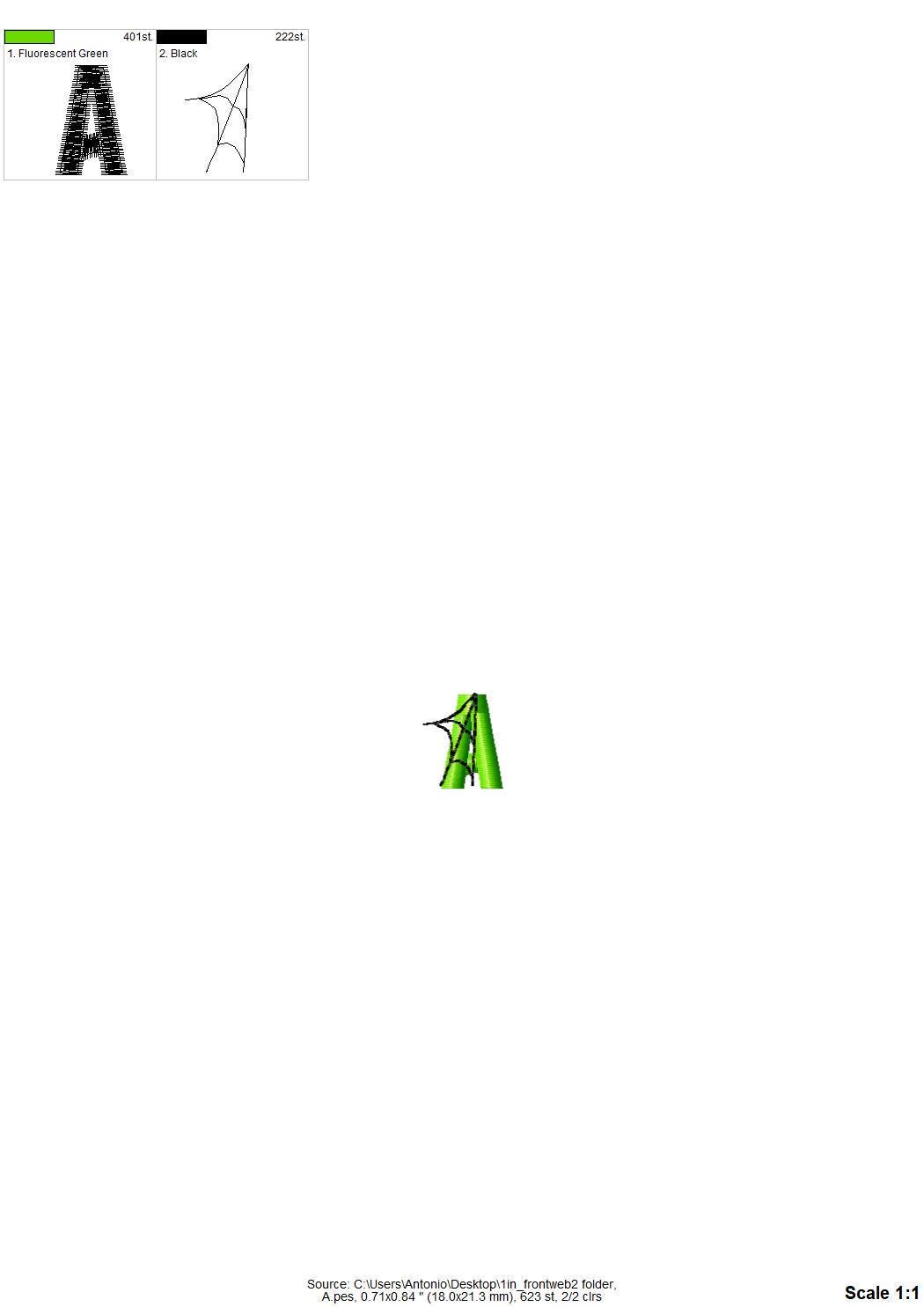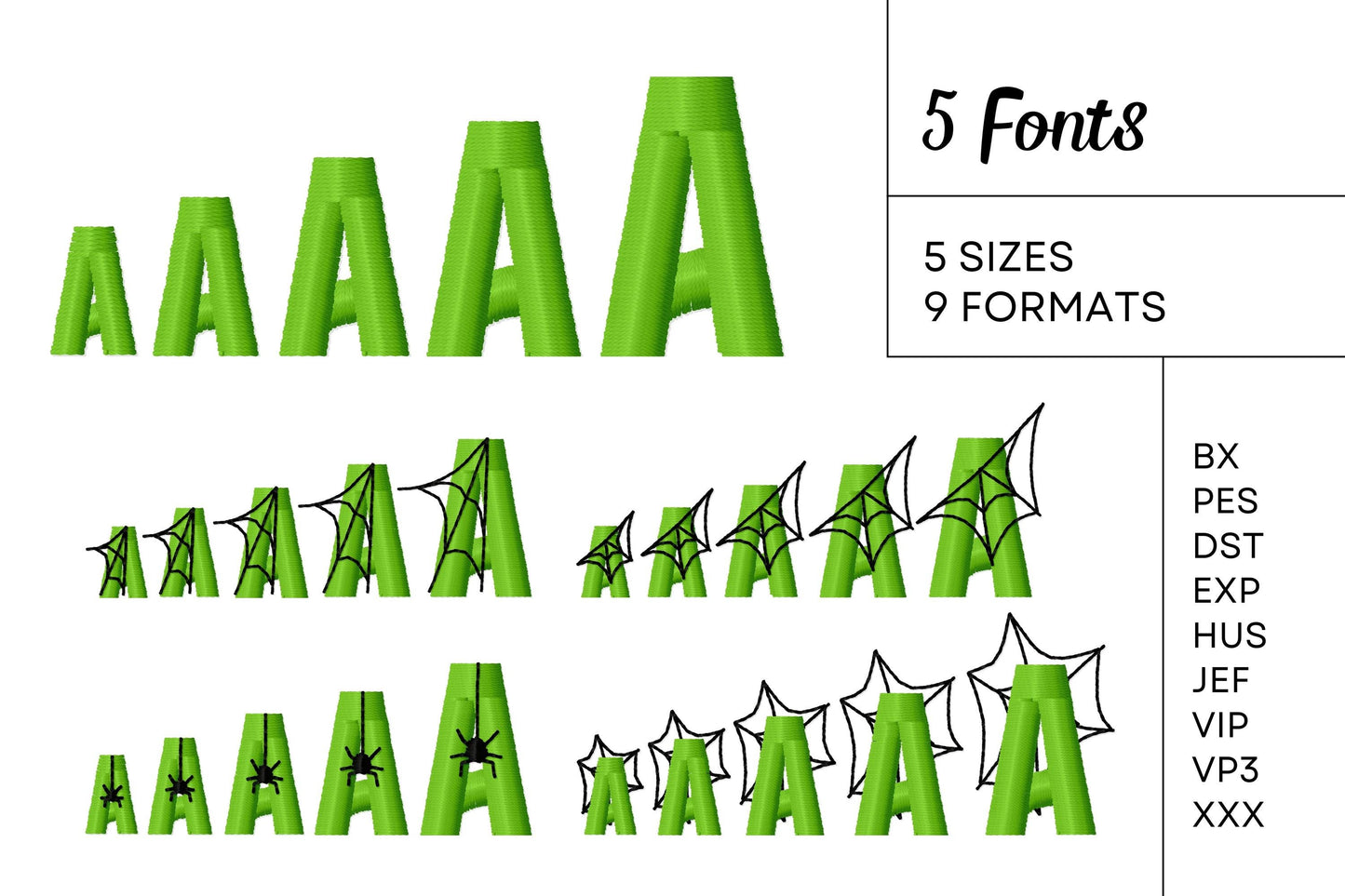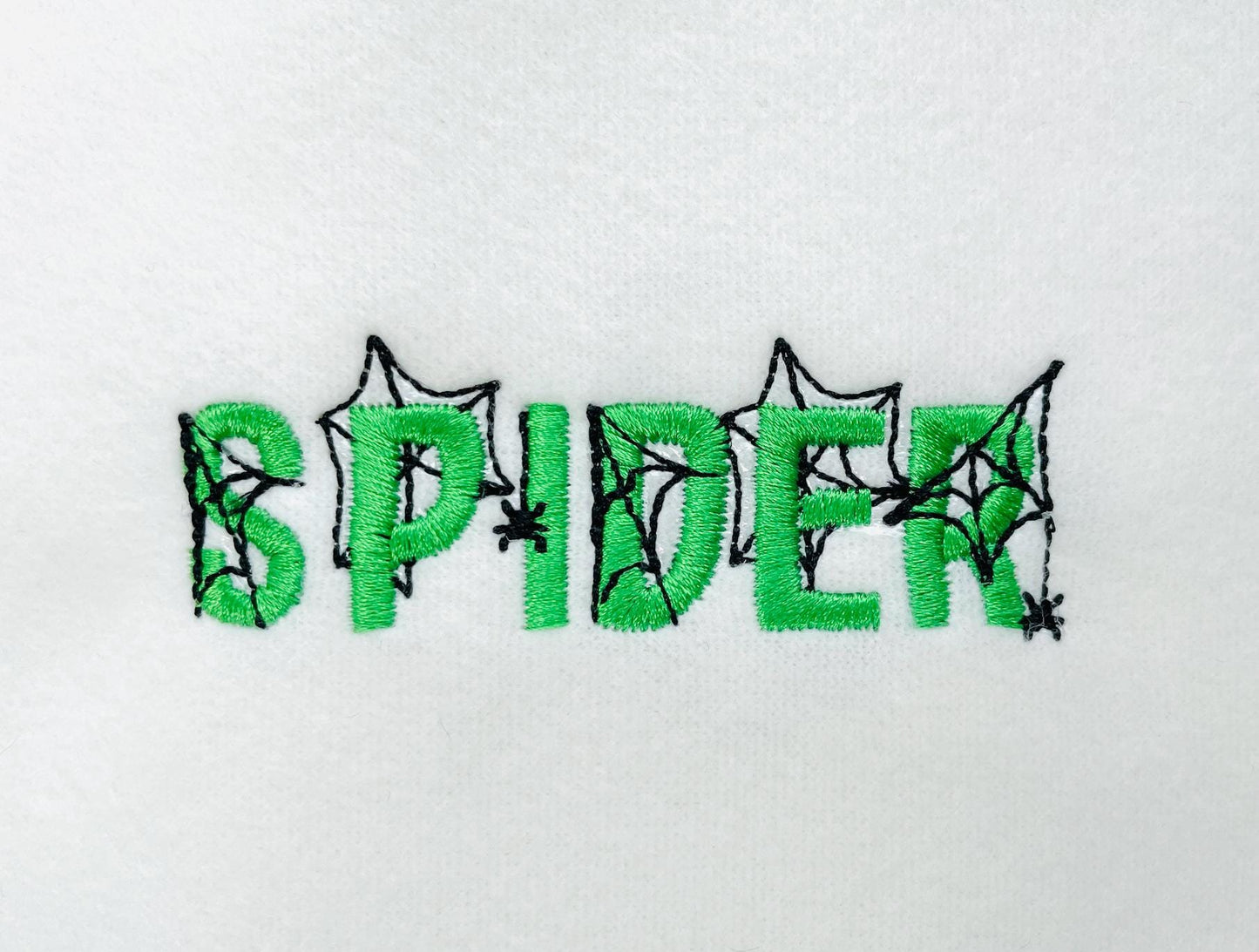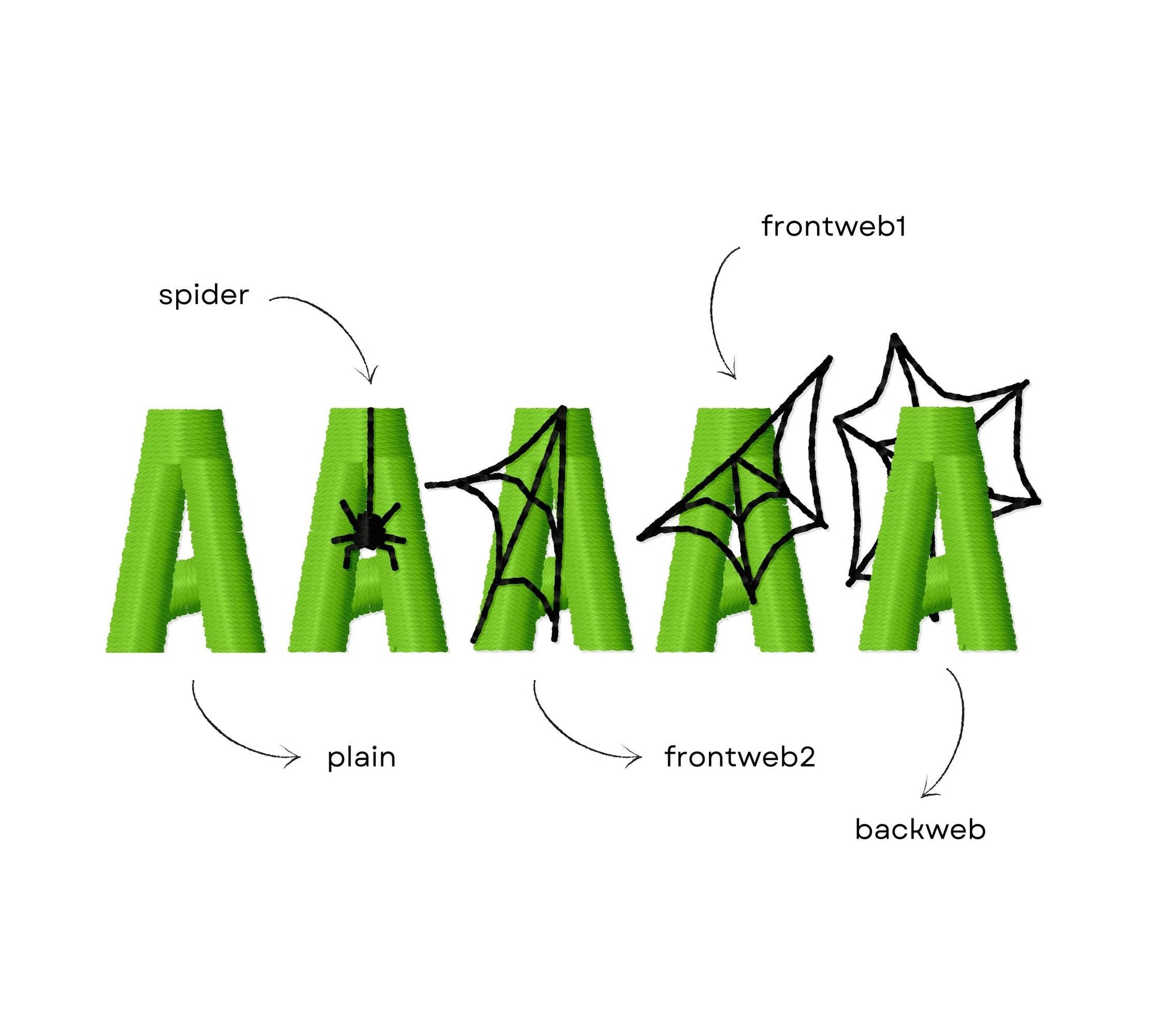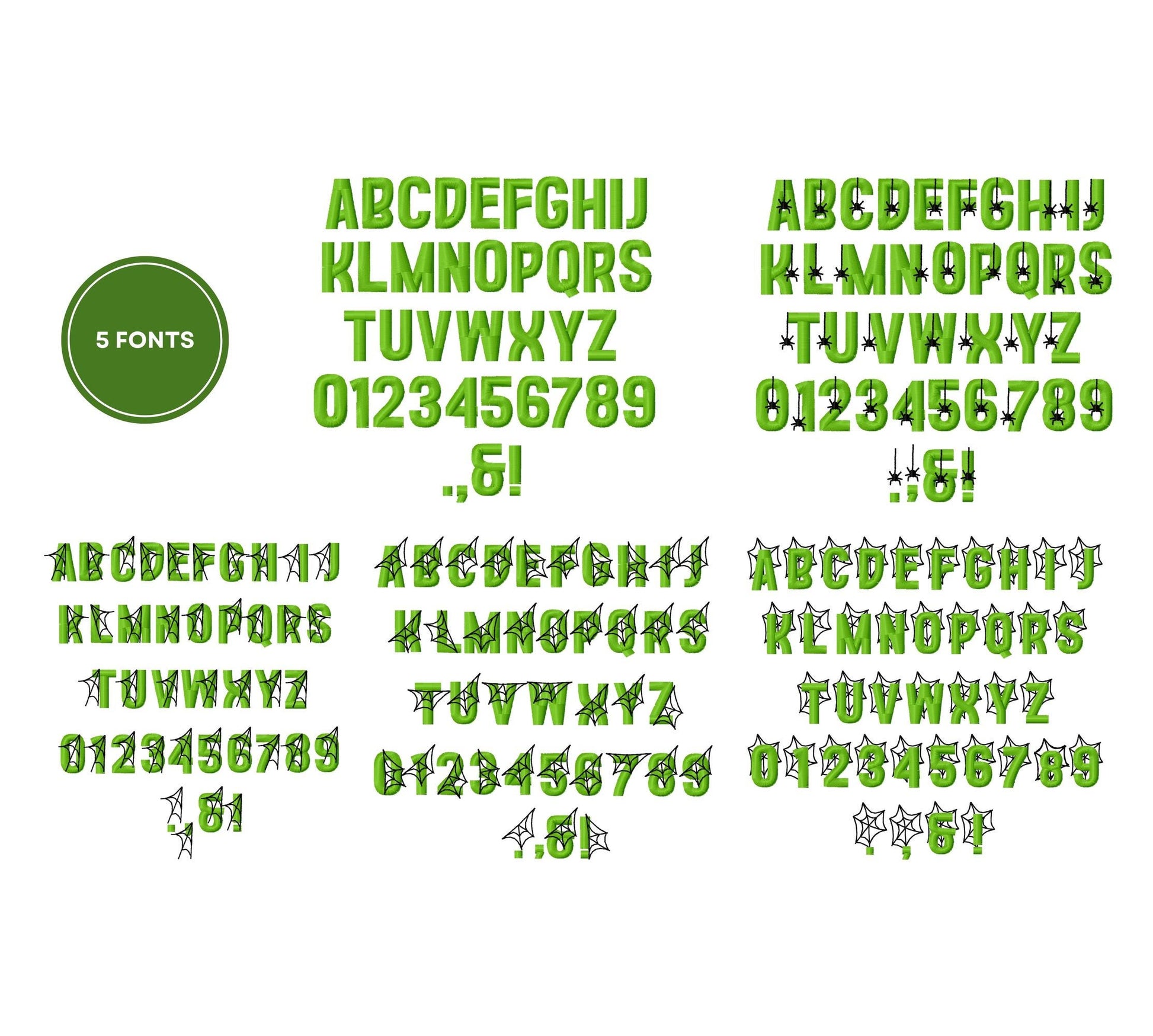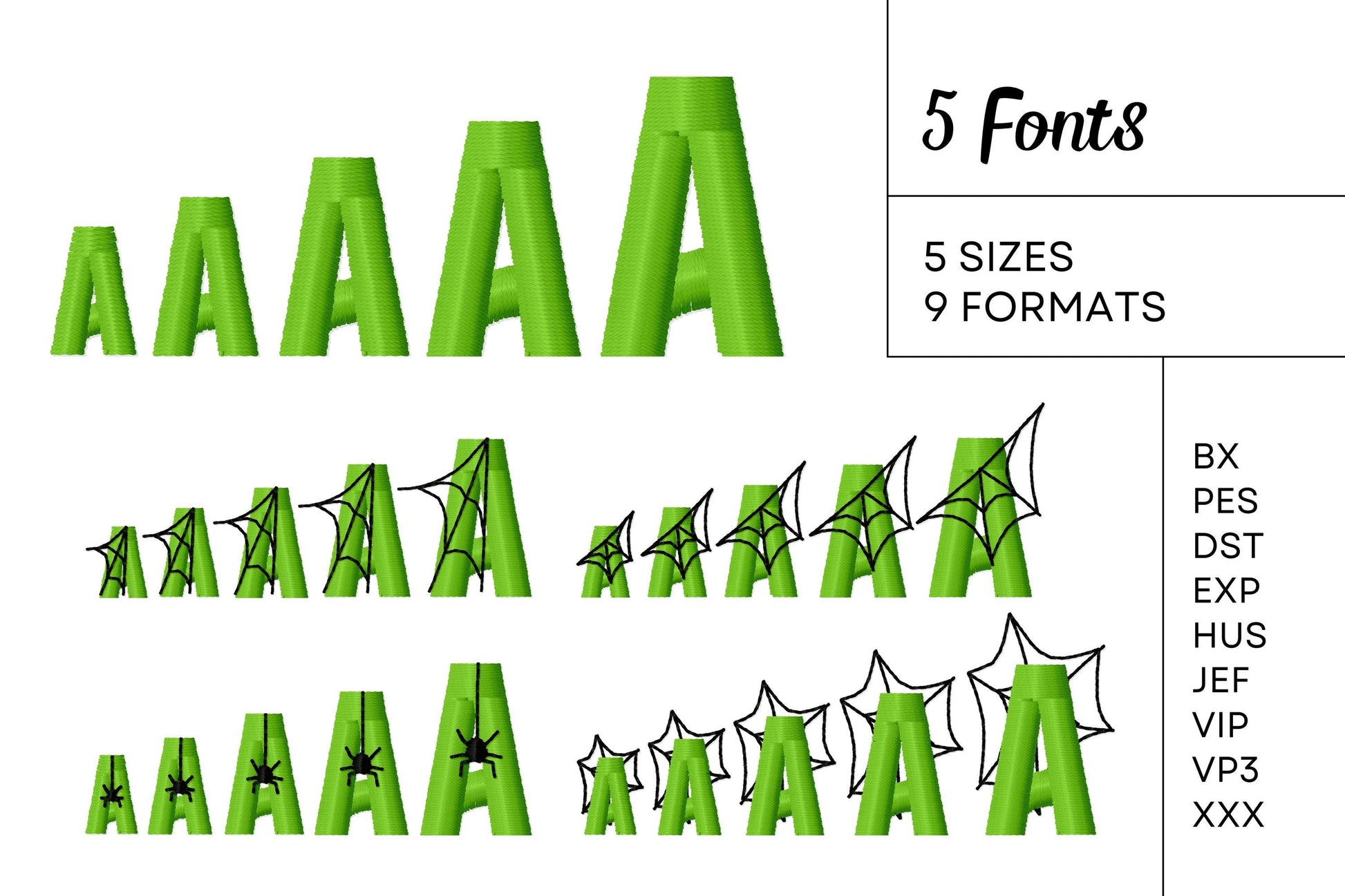
Halloween Spider Web Set 5 Mini Block Fonts
Or click to open the linkFive mini spider web block fonts for Halloween. Mix and match for small names, sleeves and treat bags.
Uppercase letters A to Z, numbers 0 to 9 and a few signs, in mini sizes from 0.5 to 1.3 inches. All five fonts come in 0.6, 0.7, 0.8 and 1 inch, and each also has one more size: 0.5, 1.2 or 1.3 inches.
- 5 spider web mini block fonts
- Uppercase A-Z, numbers 0-9
- Mini sizes, 0.5 to 1.3 in